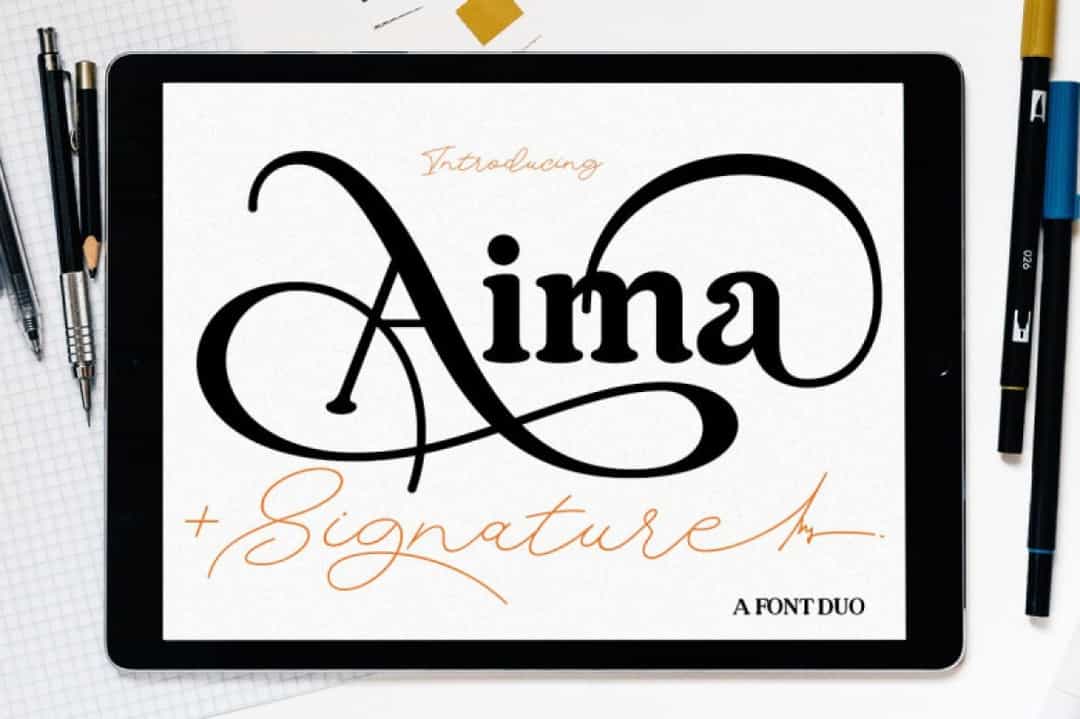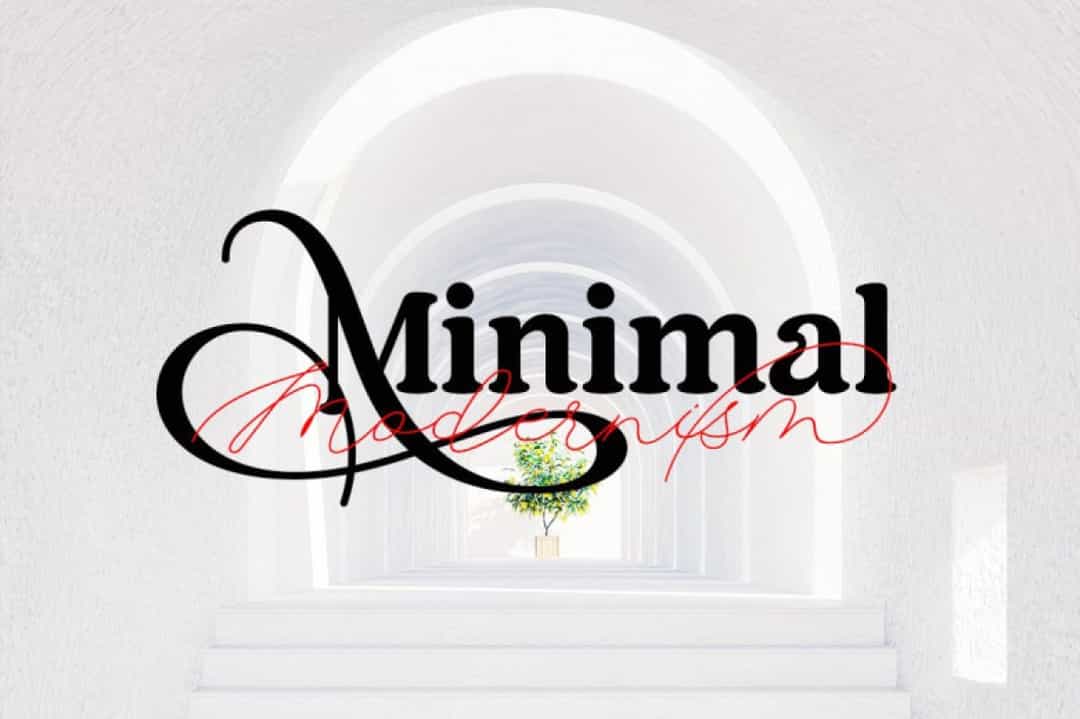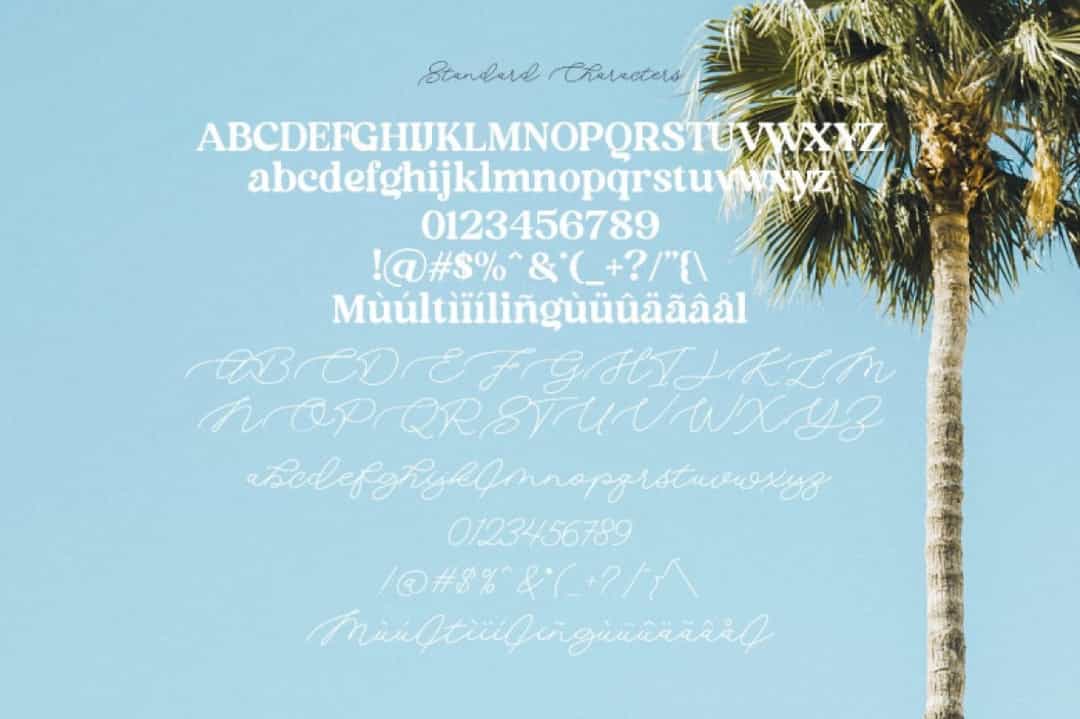
Aima Font Duo
Discover Aima Font Duo, part of the   Serif Display Signature collection—a versatile and unique font perfect for adding a personal touch to your projects. Download it for free and enjoy crafting designs with style, from invitations to social media posts. This font is available exclusively for personal use, giving you the freedom to create without limits. Unlock your creativity with Aima Font Duo today!
With Aima Font Duo’s introduction, we present an appealing signature font which conveys both an energetic and relaxed mood through its lively basic. Additionally, Aima Display allows users to combine and personalize it to their art works seamlessly.